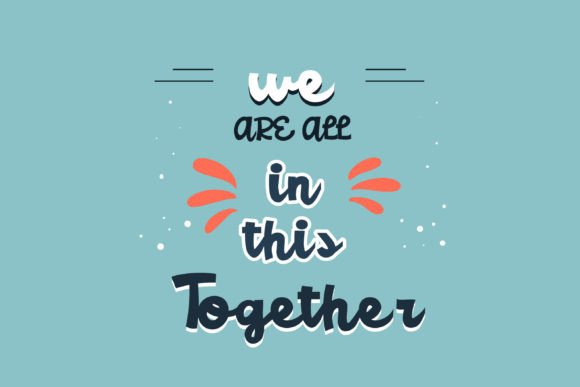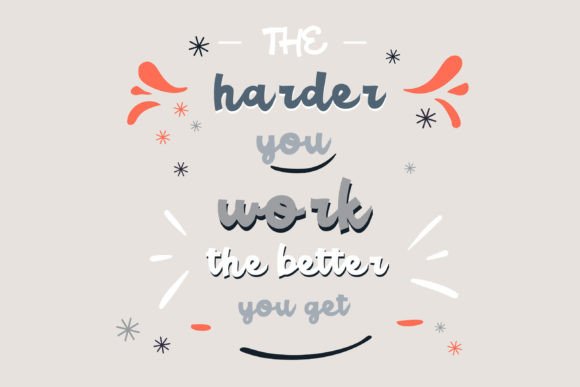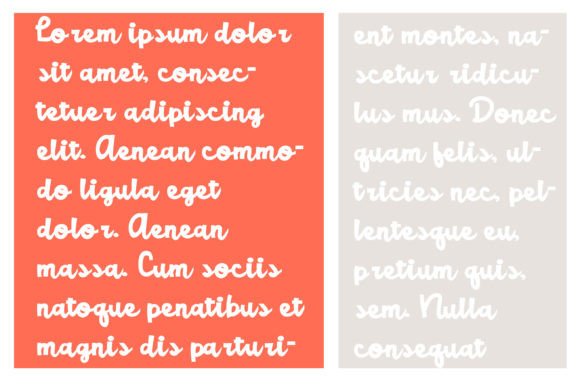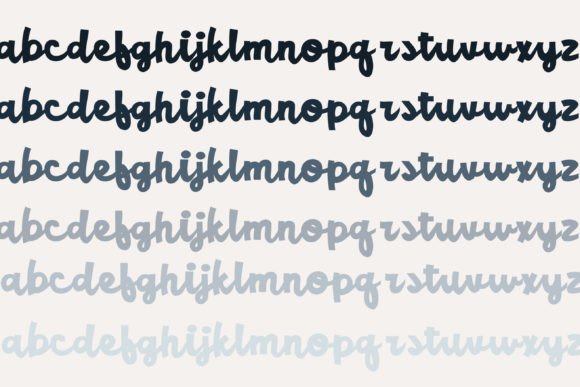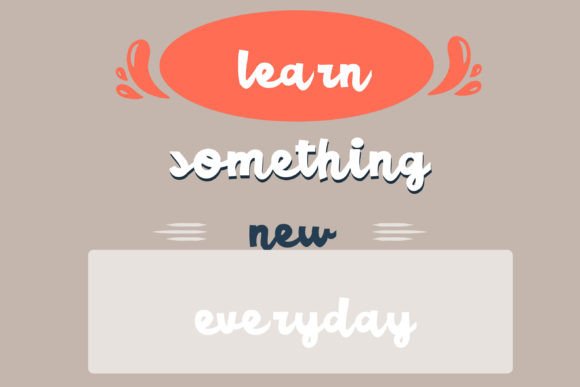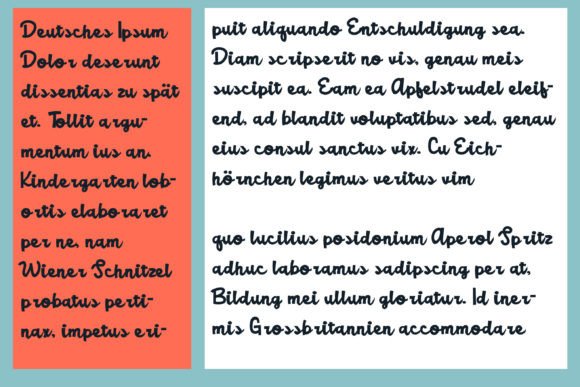
Finterest Font: Adding a Touch of Whimsy to Your Designs
Are you looking for a font that can add a dash of fun and personality to your designs? Look no further than the Finterest Font, a bold cursive script that’s perfect for a wide range of projects. With its hand-written print and whimsical feel, this font is sure to make your designs stand out from the crowd.
What is Finterest Font?
Finterest Font is a beautiful, hand-written script font that’s designed to bring a touch of elegance and sophistication to your designs. This bold cursive font features gorgeous typographic elements that are perfect for a variety of projects, from logos and branding to invitations, stationery, and more.
Characteristics of Finterest Font
So, what makes Finterest Font so special? Here are just a few of its key characteristics:
- Hand-written print: Finterest Font has a beautifully hand-written print that’s full of character and personality.
- Bold cursive script: This font features a bold, cursive script that’s perfect for making a statement.
- Whimsical feel: Finterest Font has a fun and whimsical feel that’s sure to add a touch of personality to your designs.
- Gorgeous typographic elements: This font features beautiful typographic elements that are perfect for a wide range of projects.
Uses for Finterest Font
Finterest Font is a versatile font that can be used for a wide range of projects, including:
- Logos and branding: Use Finterest Font to create a unique and memorable logo for your business or brand.
- Invitations and stationery: Add a touch of elegance and sophistication to your invitations and stationery with Finterest Font.
- Wedding designs: This font is perfect for wedding designs, including wedding invitations, programs, and more.
- Social media posts: Use Finterest Font to add a touch of personality to your social media posts and make them stand out from the crowd.
- Advertisements: This font is perfect for advertisements, including print ads, digital ads, and more.
- Product packaging: Use Finterest Font to add a touch of personality to your product packaging and make it stand out on store shelves.
- Product designs: This font is perfect for product designs, including labels, tags, and more.
- Labels and photography: Use Finterest Font to add a touch of elegance and sophistication to your labels and photography.
- Watermarks and special events: This font is perfect for creating watermarks and designing special events, including parties, conferences, and more.
Why Choose Finterest Font?
So, why choose Finterest Font for your next project? Here are just a few reasons:
- Unique and memorable: Finterest Font is a unique and memorable font that’s sure to make your designs stand out from the crowd.
- Elegant and sophisticated: This font has an elegant and sophisticated feel that’s perfect for a wide range of projects.
- Versatile: Finterest Font is a versatile font that can be used for a wide range of projects, from logos and branding to invitations and social media posts.
- Easy to read: This font is easy to read, even in small sizes, making it perfect for a wide range of applications.
In conclusion, Finterest Font is a beautiful, hand-written script font that’s perfect for a wide range of projects. With its bold cursive script, gorgeous typographic elements, and whimsical feel, this font is sure to add a touch of personality and elegance to your designs. Whether you’re a designer, crafter, or DIY enthusiast, Finterest Font is a great choice for any project that needs a touch of handwriting taste.